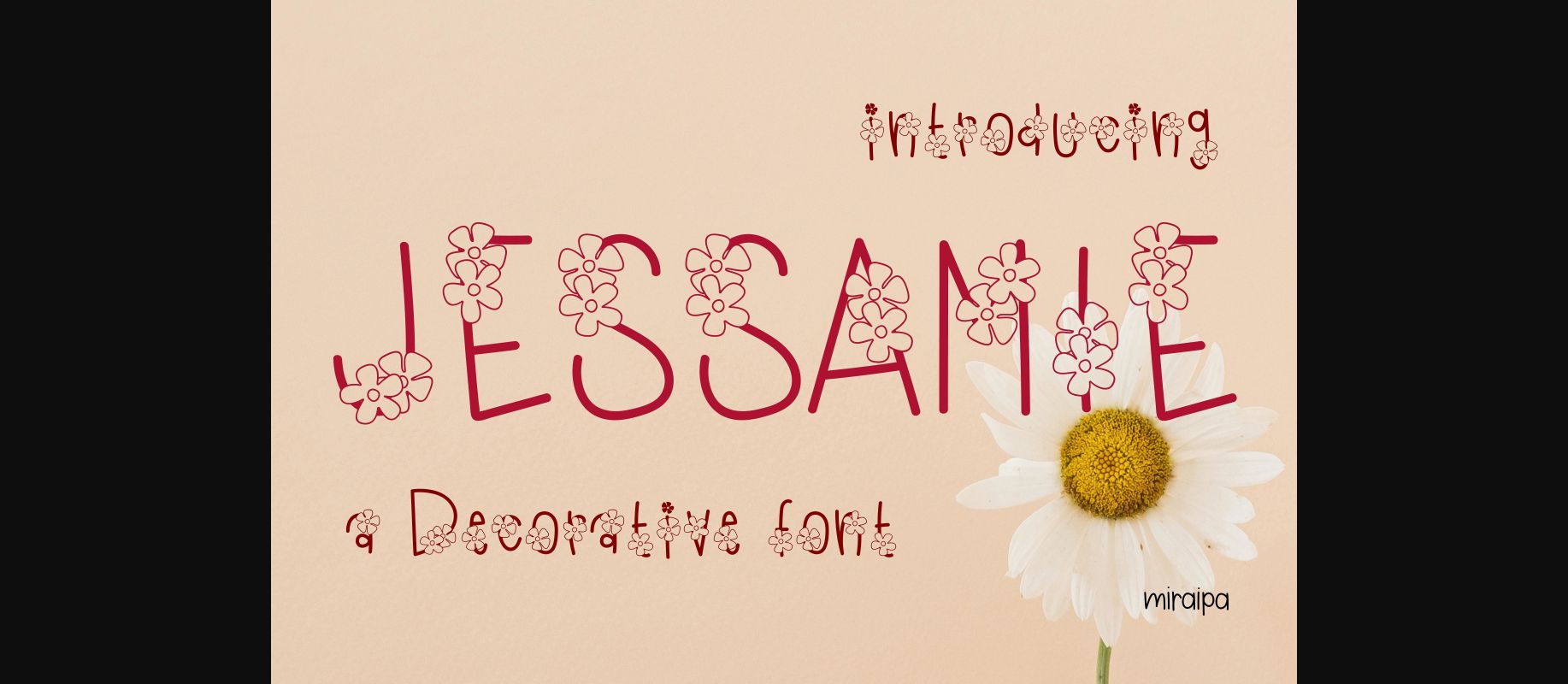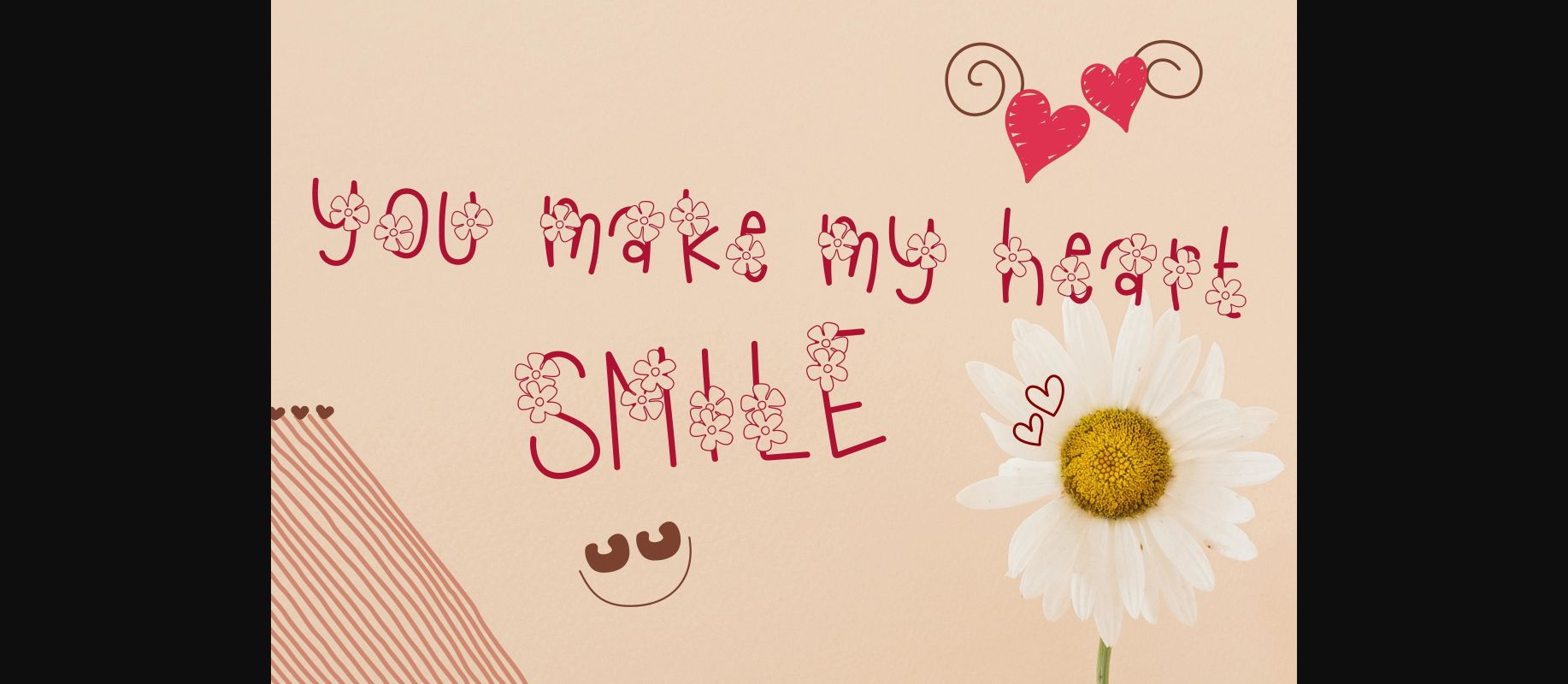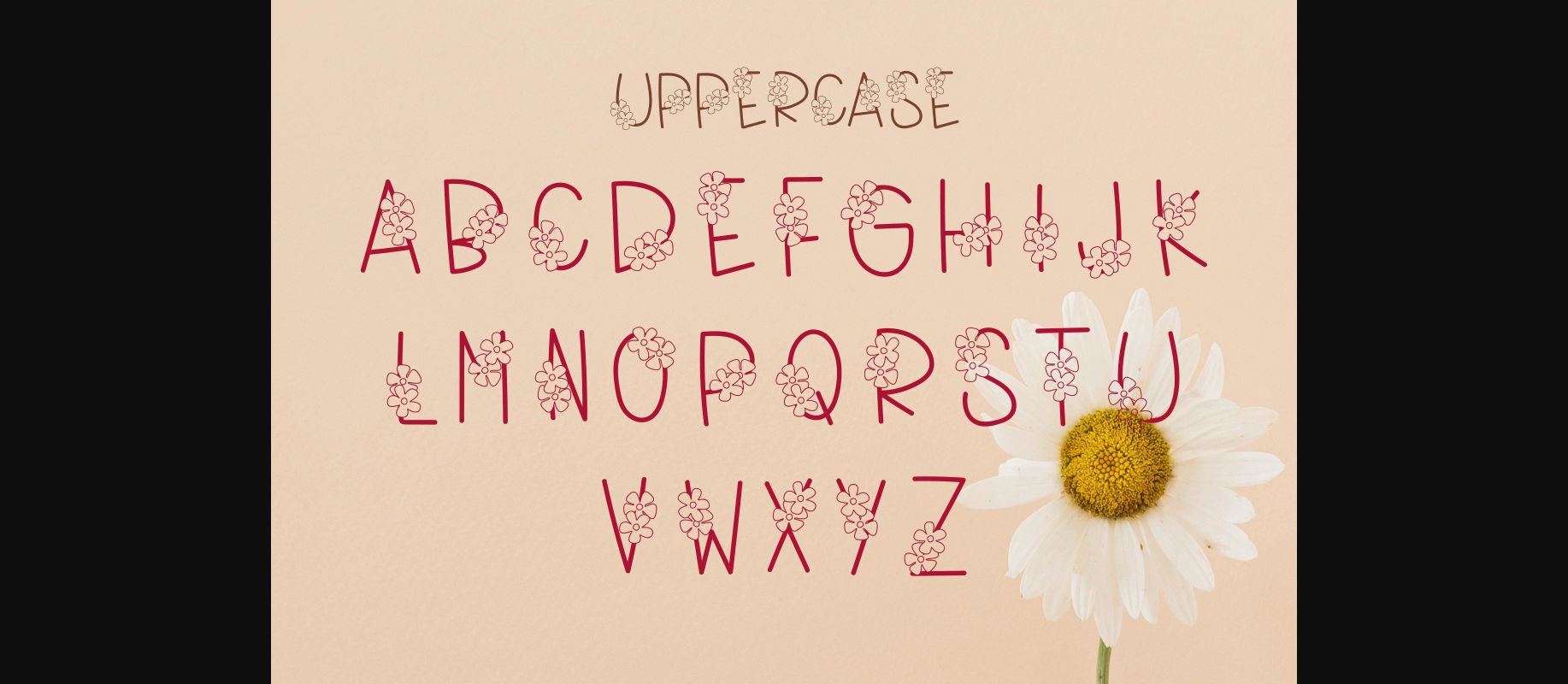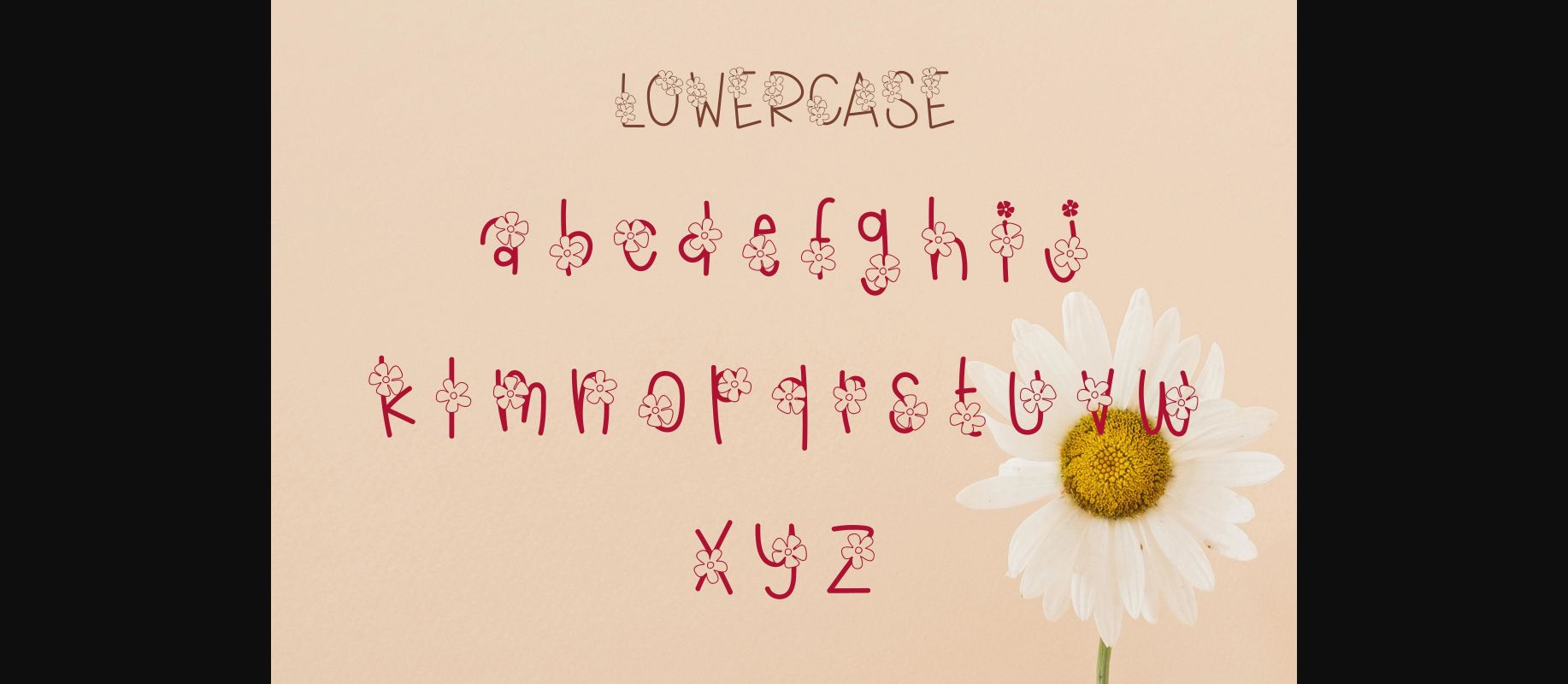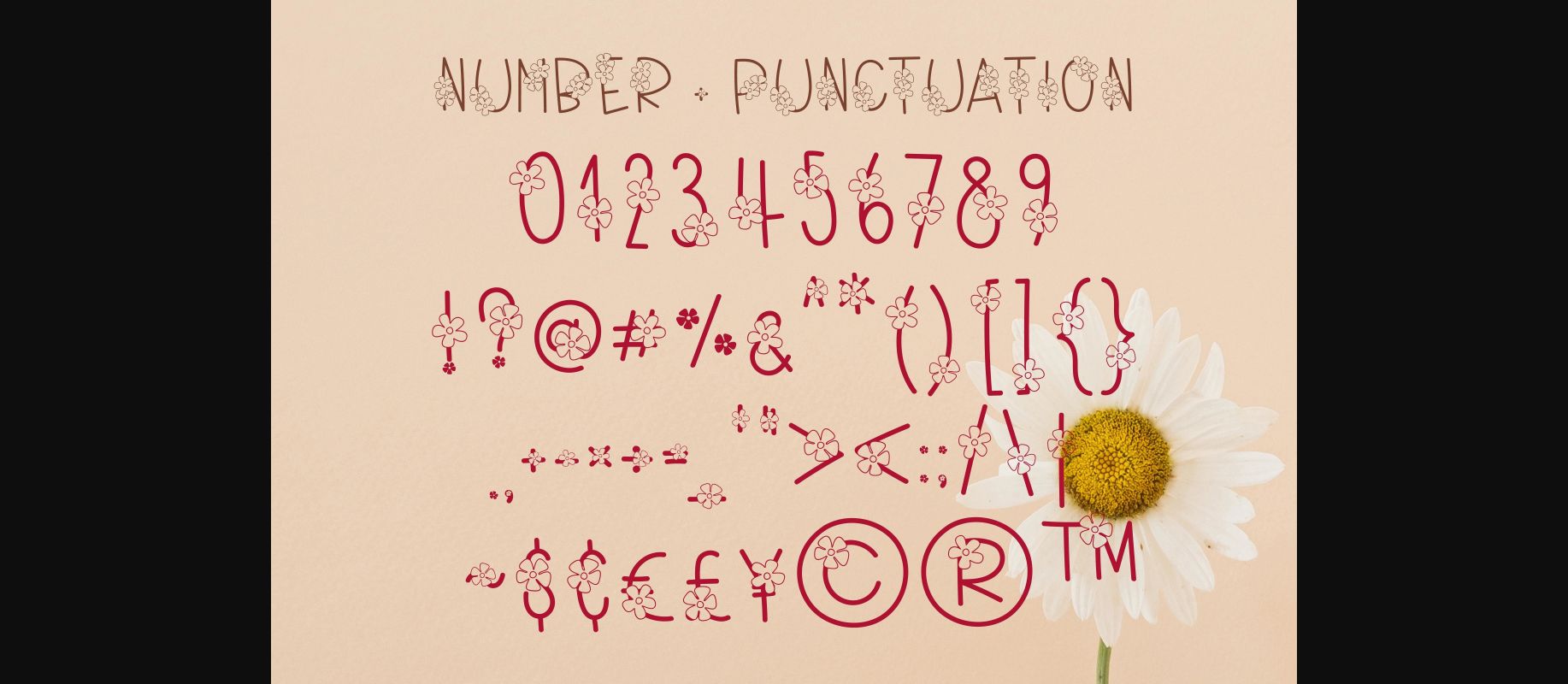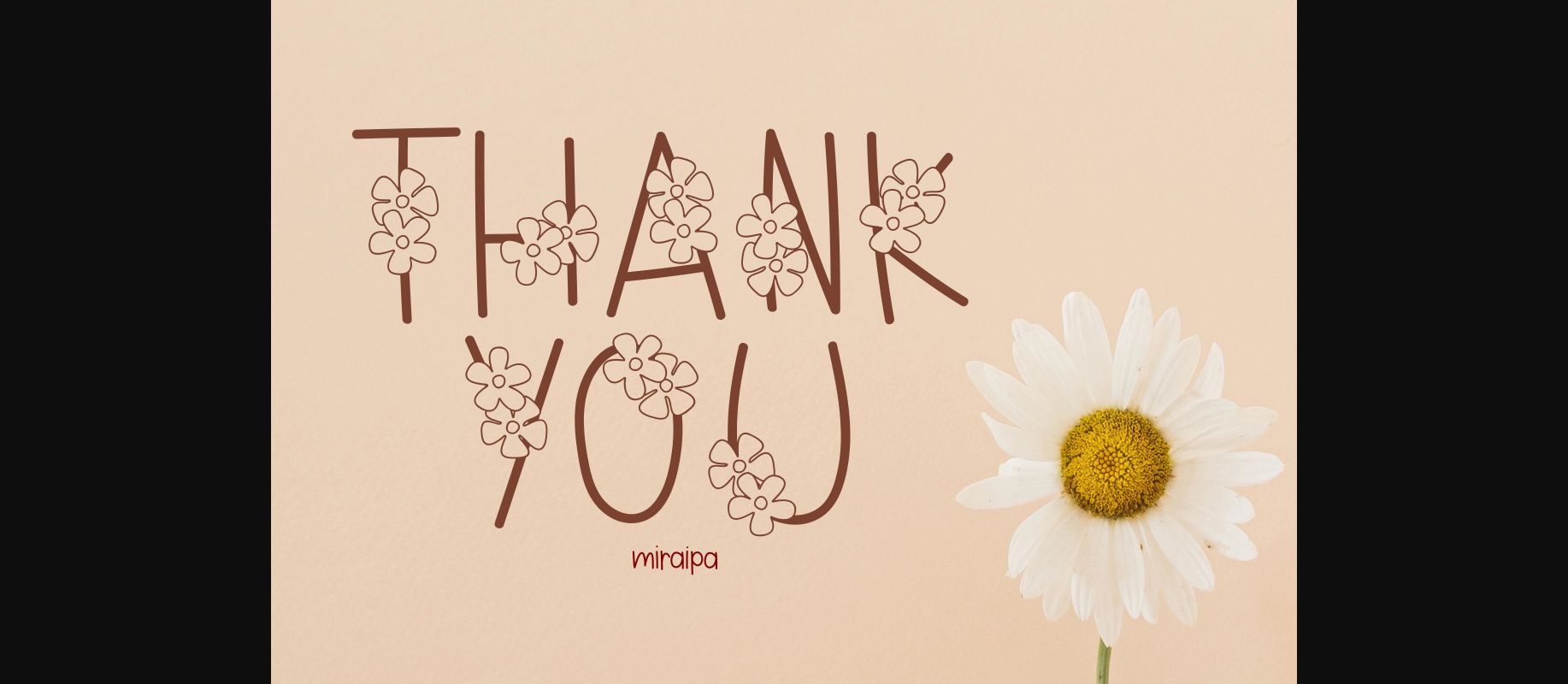
Jessamie Font
About Jessamie Font
Jessamie is a cute and lovely decorative font. With its adorable little flowers, this font is suitable for a wide range of girly projects!